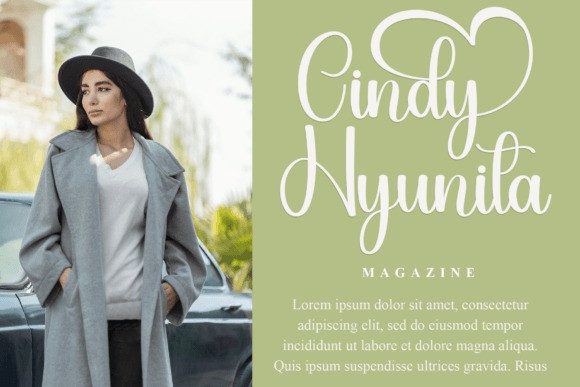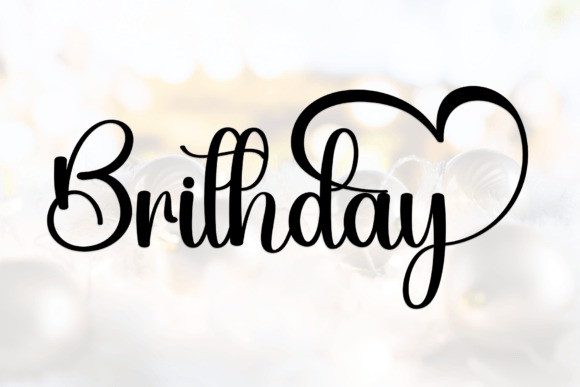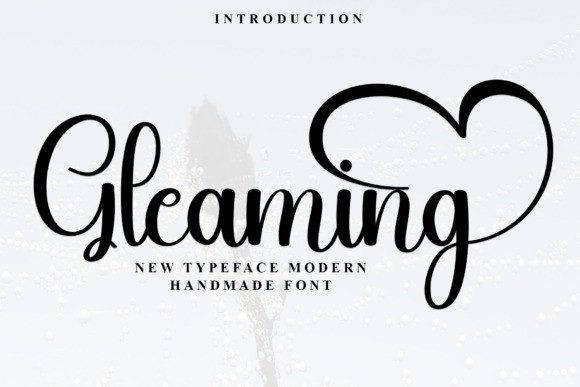
Gleaming Font
Gleaming Font is a lovely and timeless handwritten font. It is the best choice for creating eye catching logos, branding and quotes. Every letter has a unique and beautiful touch, which will make your design come alive!